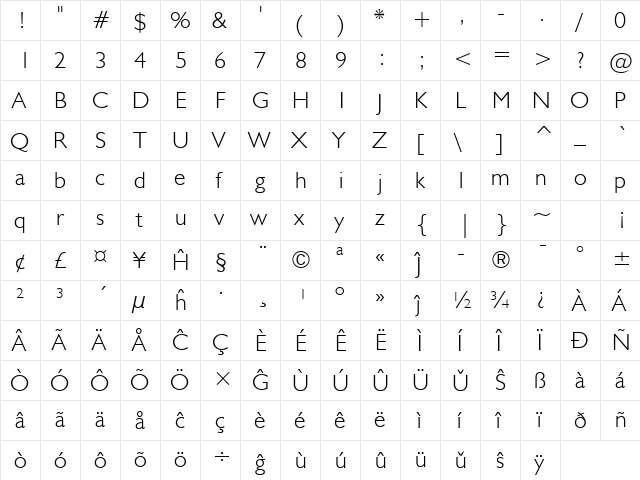
Humanst521 Lt BT Eo Light
Design Context for Humanst521 Lt BT Eo Typeface
Humanst521 Lt BT Eo is a composed and adaptable typeface that performs quietly and consistently across a wide range of design contexts. Its slender proportions lend an understated elegance to any composition.